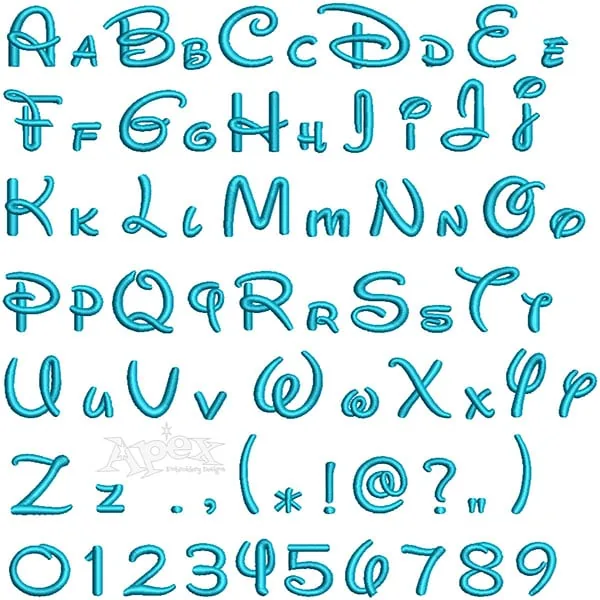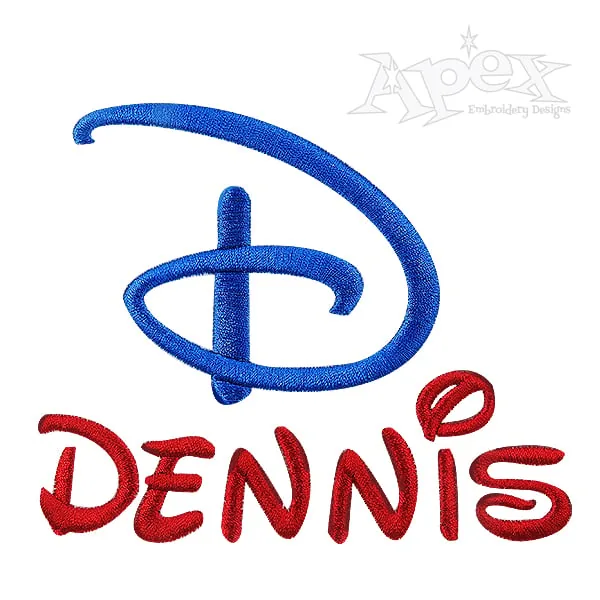
Dennis Embroidery Font
Needle trace nostalgic wonder across hoop. Dennis embroidery font capture spirit of golden-era animation, turn bold brush script into tactile joy. Artisan digitizers craft every whimsical curve to spark childhood wonder, storybook energy, timeless celebration. Dense satin stitch alphabet catch light, transform plain textiles into custom monogramming masterpieces.
- Full uppercase script alphabet.
- Full lowercase script alphabet.
- Complete numeral set 0 through 9.
- Punctuation marks, standard symbols.
Dennis Craft & Letterform Details
Design draw life from classic animation titles. Digitizer build heavy underlay foundation to anchor sweeping curves, prevent fabric bunching on knit blanks. Custom pull compensation preserve rounded terminals and dynamic loop geometry. Satin stitch flow track letter contours with precision grain direction. Raised stitch loft deliver deep tactile presence for heirloom embroidery and bespoke monogram projects.